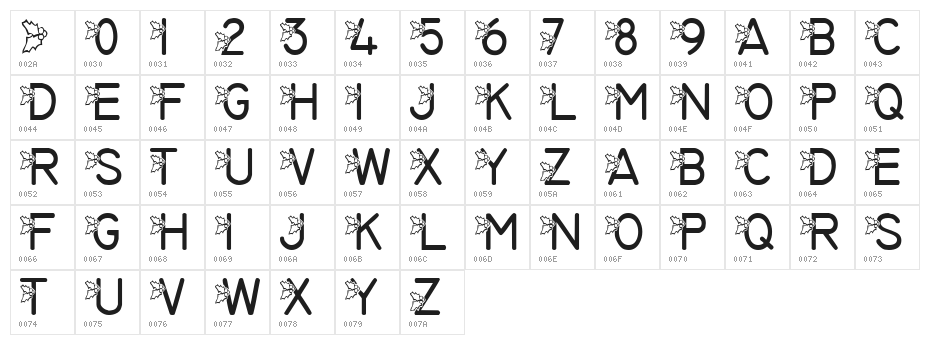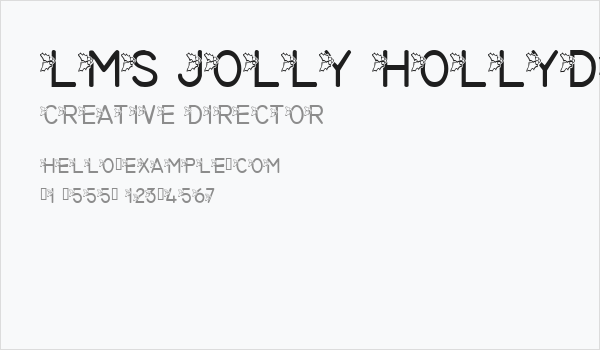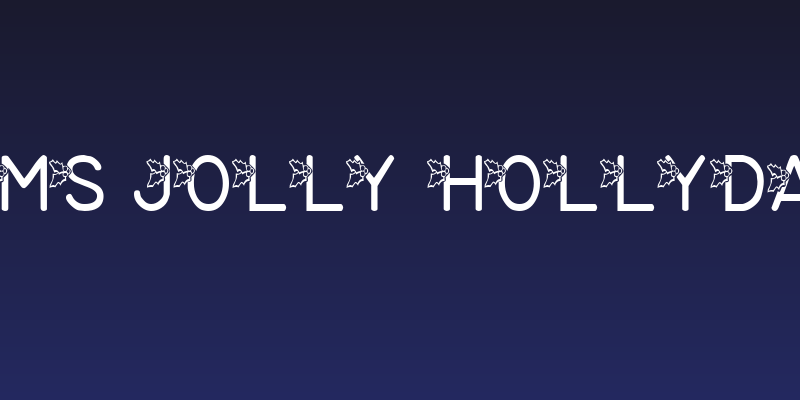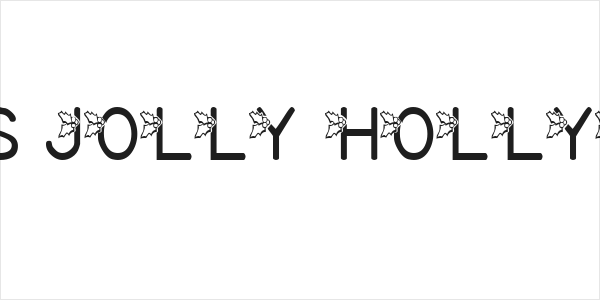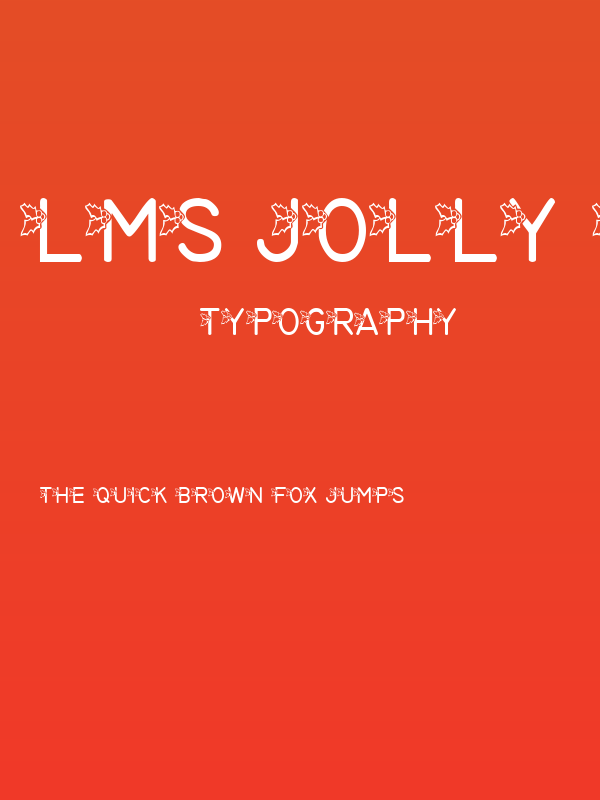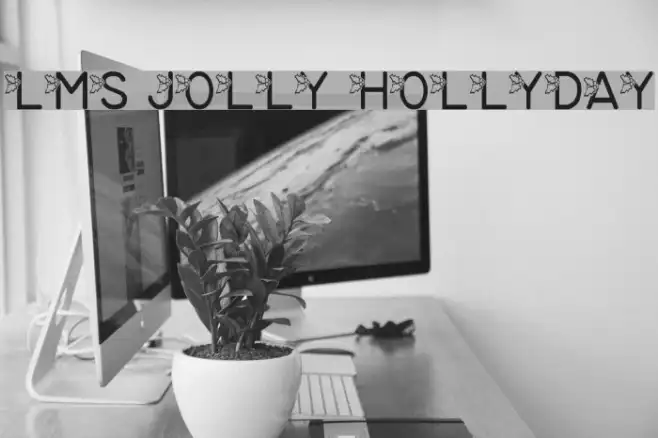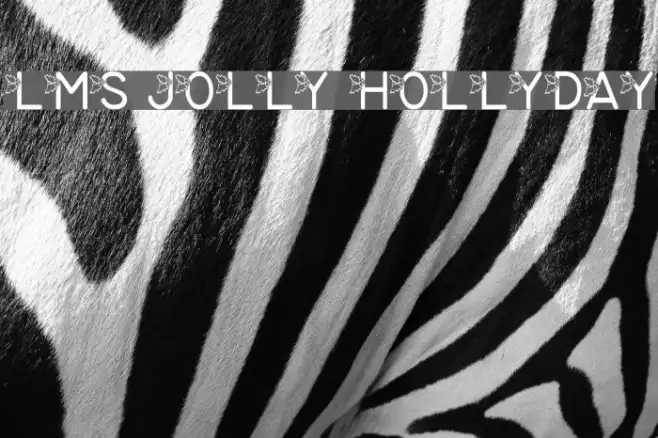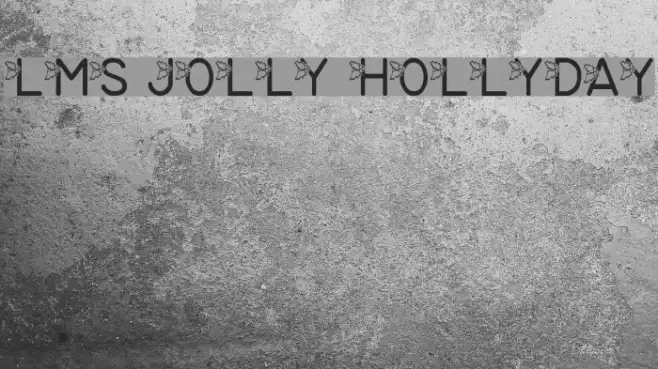
LMS Jolly Hollyday Font
LMS Jolly Hollyday Description
This decorative font features a playful and festive design, incorporating holly leaves and berries as embellishments on each character. The letters are bold and clear, with a whimsical touch that adds a holiday spirit to any text. The uppercase and lowercase alphabets are consistent in style, maintaining the festive theme throughout. Numbers are equally adorned, making them perfect for seasonal displays. The overall design is eye-catching and ideal for creating a joyful atmosphere.
| Proposed Projects | Ideal for holiday greeting cards, festive banners, seasonal invitations, and Christmas-themed posters. |